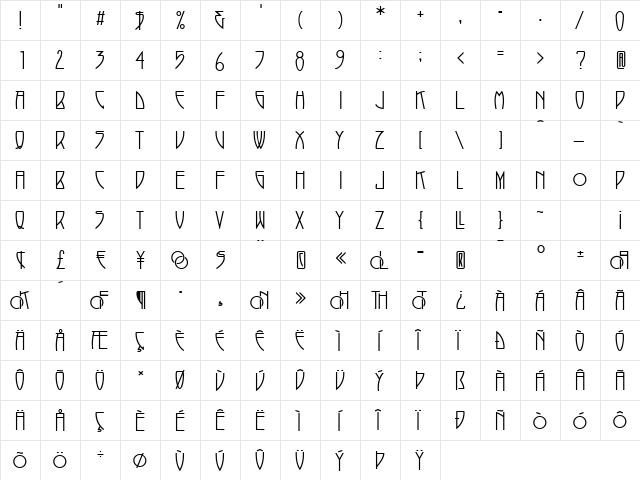
P22ArtsAndCrafts Tall
Design Context for P22ArtsAndCrafts Typeface
P22ArtsAndCrafts is a composed and adaptable typeface that performs quietly and consistently across a wide range of design contexts.